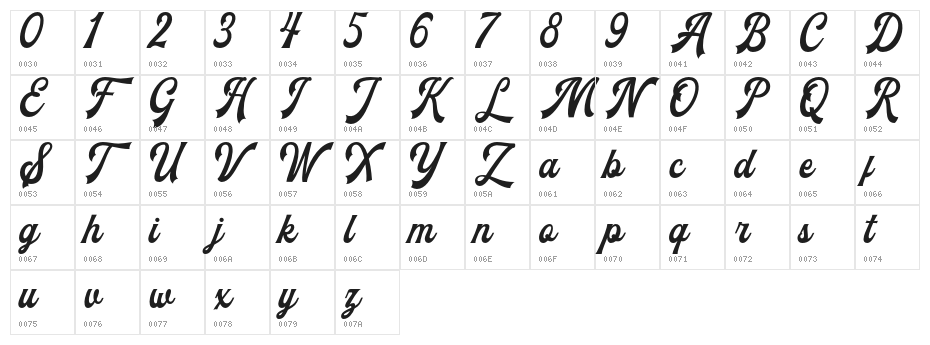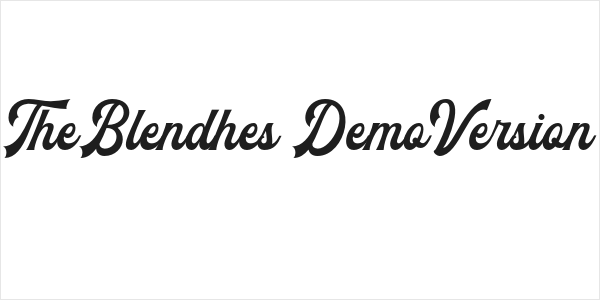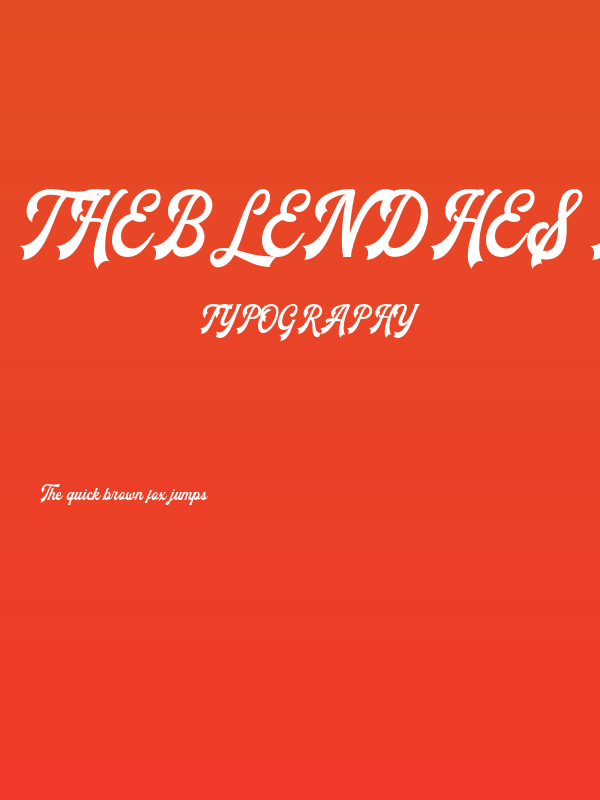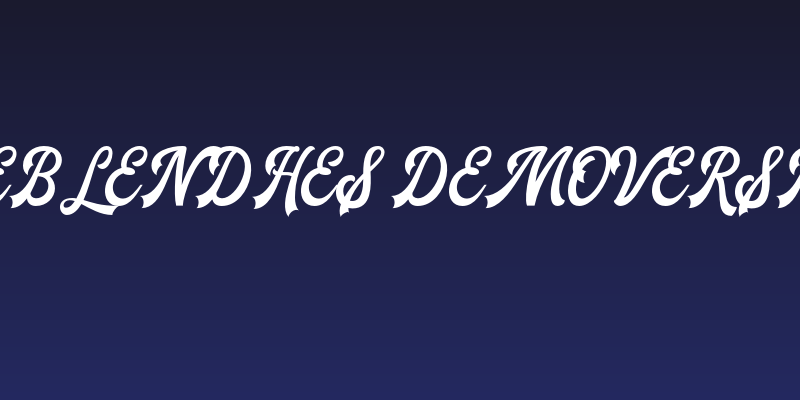
TheBlendhes-DemoVersion Font
TheBlendhes-DemoVersion Description
This font features a dynamic and elegant script style, characterized by its flowing, cursive letterforms. The uppercase letters exhibit a bold and confident presence, with sweeping curves and sharp angles that create a sense of movement and sophistication. The lowercase letters maintain a harmonious flow, with smooth connections and a slightly slanted orientation that enhances readability. The numerals are consistent with the overall style, offering a balanced blend of curves and straight lines. This font's design is both expressive and versatile, making it suitable for a variety of creative applications.
| Proposed Projects | Ideal for wedding invitations, branding, and elegant packaging designs. |